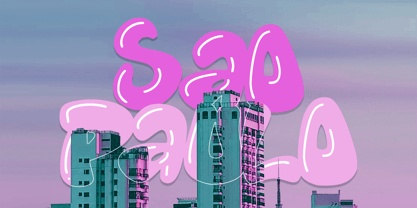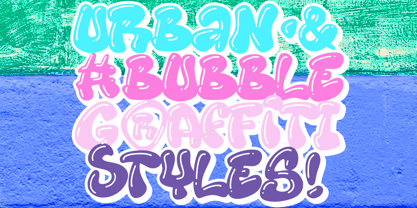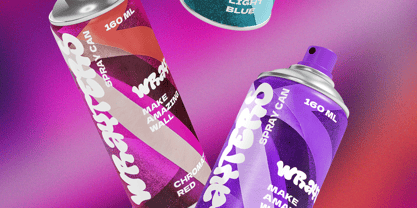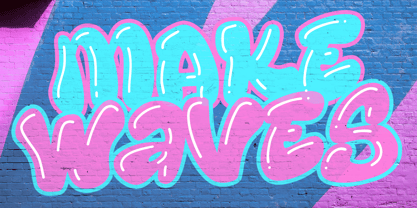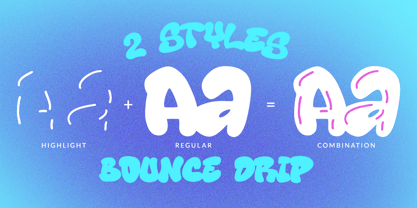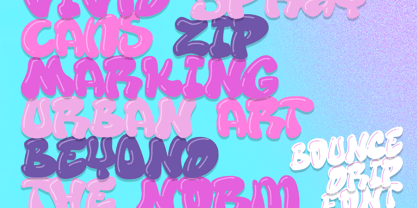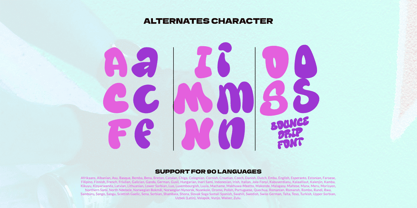
Bounce Drip
by Ditatype
The Bounce Drip Font Family was designed by Donis Miftahudin and published by Ditatype. Bounce Drip contains 2 styles and family package options.
Bounce Drip is a dynamic graffiti font that captures the bold energy of street art. Crafted in uppercases to make maximum impact. It is also made in consistent letters with a playful, rounded bubble shape that adds a lively and approachable vibe. The design is enhanced with a highlight style, offering versatility when paired with its regular version. Whether used individually or layered together, Bounce Drip creates vibrant compositions that stand out. In addition, enjoy the features here.
Features:
• Alternates
• Multilingual Supports
• PUA Encoded
• Numerals and Punctuations
Bounce Drip fits in logos, posters, branding materials, print media, and many more designs. Find out more ways to use this font by taking a look at the font preview.